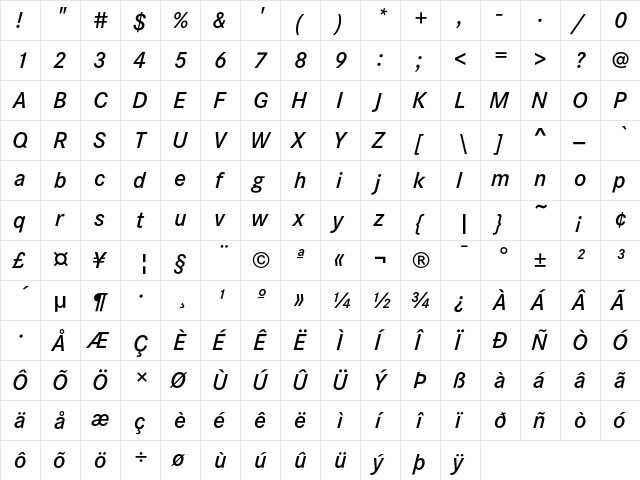
CorporateS DemiItalic
Design Context for CorporateS Typeface
CorporateS offers clean, dependable letterforms without strong stylistic allegiance, making it a practical choice for designers who need flexibility. The slanted form adds forward momentum and visual energy.
Pro Tip: Use CorporateS for emphasis, pull quotes, and subheadings where its slanted energy can add rhythm to the layout.